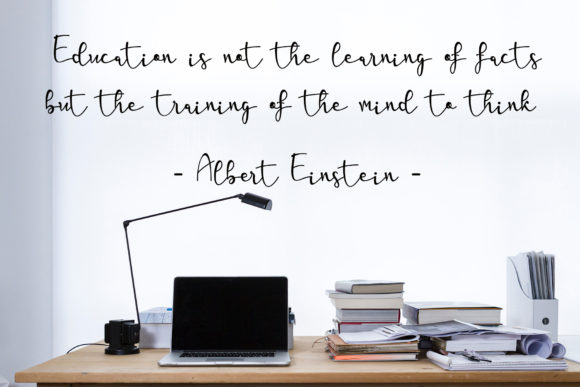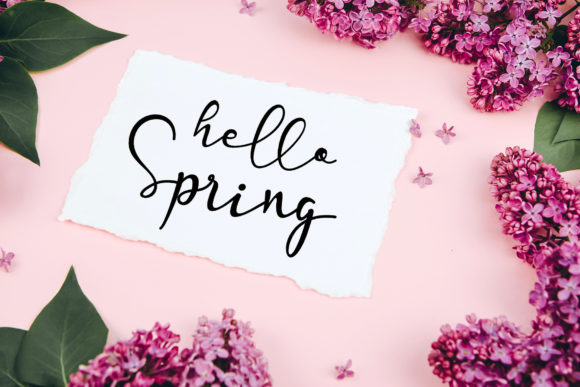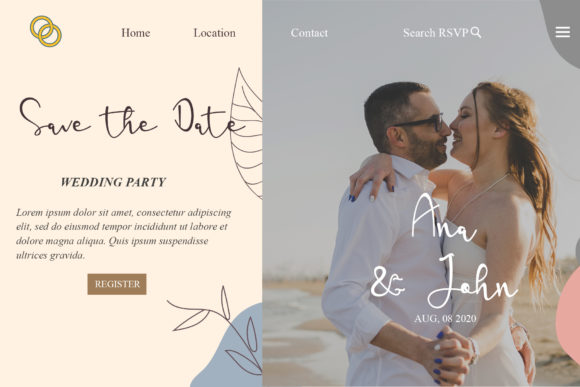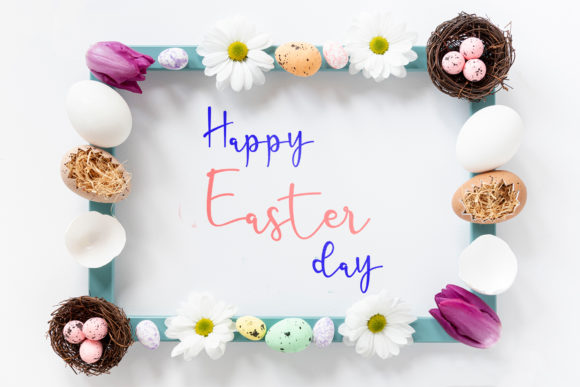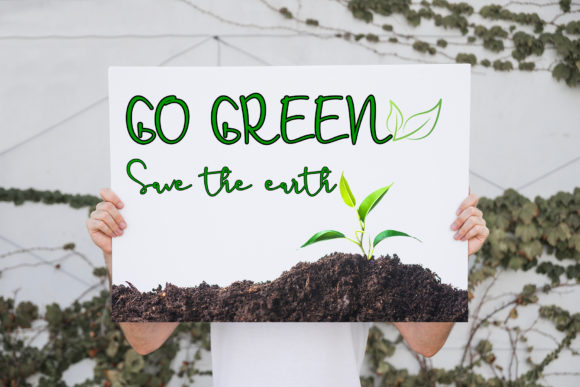
About Sarleetta Font
Sarleetta is a sweet and cursive handwritten font. This gentle font will look gorgeous on a variety of design ideas. It will add a joyful and romantic touch to each of your projects!